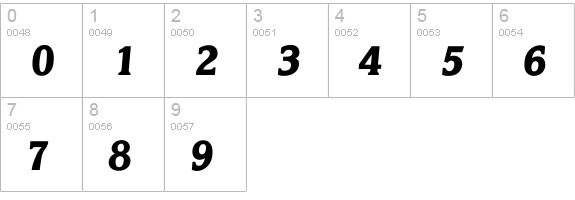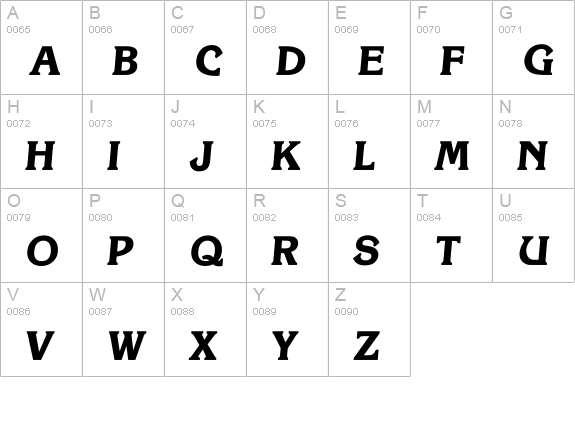
Ikorinth Bold Font Details
Ikorinth Bold is a strong, high-contrast variant in the Ikorinth typeface family \xE2\x80\x94 well suited to headlines, attention-grabbing titles, and strong calls-to-action.
Introducing Ikorinth Bold, a stunning font that effortlessly combines modern elegance with timeless appeal. With its bold and commanding presence, this typeface is designed to make a lasting impression in any design project. The Ikorinth Bold font exudes confidence and sophistication, making it the perfect choice for luxury brands, high-end products, and impactful headlines. Its strong and distinctive letterforms create a sense of authority while maintaining a sense of approachability. This font's versatility is evident in its ability to adapt to various design styles and contexts. Whether used in print materials, digital platforms, or branding campaigns, Ikorinth Bold effortlessly captures attention and conveys a message of professionalism and quality. But what makes Ikorinth Bold even more exceptional is that it is available for free download at FontsMarket.com. Now, designers and creatives can access this exceptional font without any constraints, allowing them to bring their visions to life without compromising on style or quality. With its freely accessible nature, Ikorinth Bold empowers designers to explore and experiment, pushing the boundaries of their creativity. Its sleek and modern aesthetic, paired with its availability, ensures that this font becomes an indispensable tool in any designer's arsenal. So, whether you're looking to add a touch of sophistication to your next project or simply want to elevate your design game, Ikorinth Bold is the font for you. Download it for free at FontsMarket.com and unlock a world of endless design possibilities.